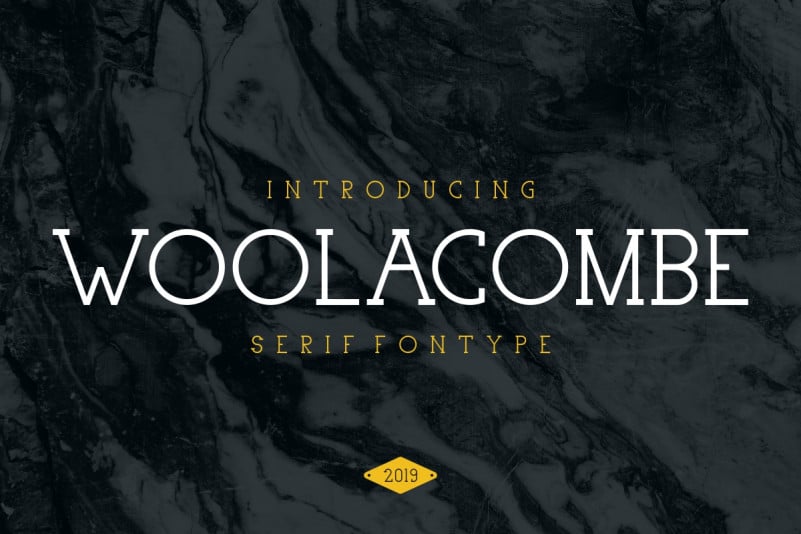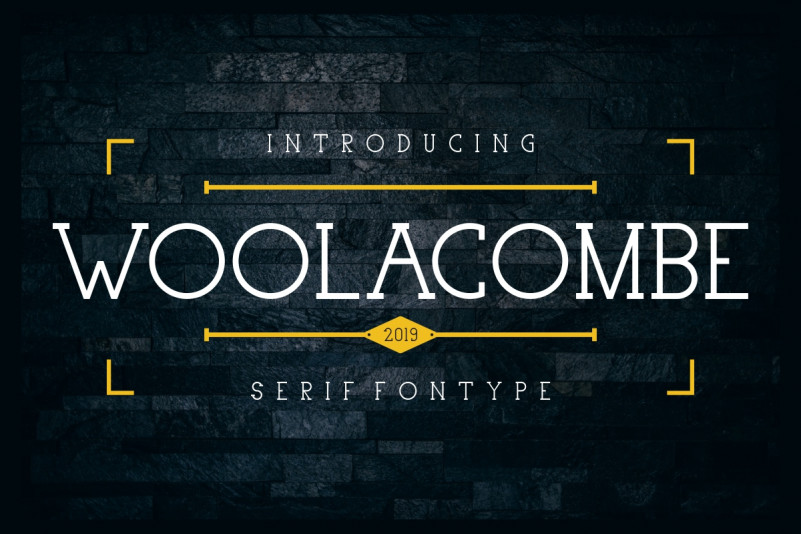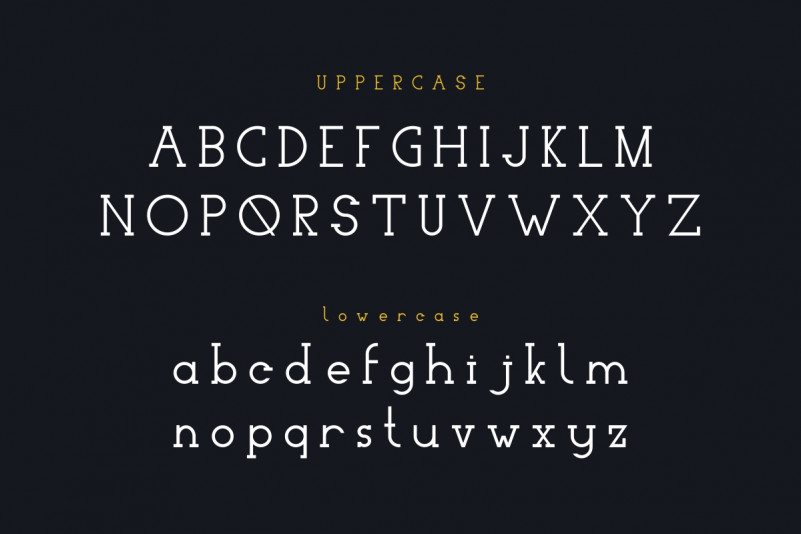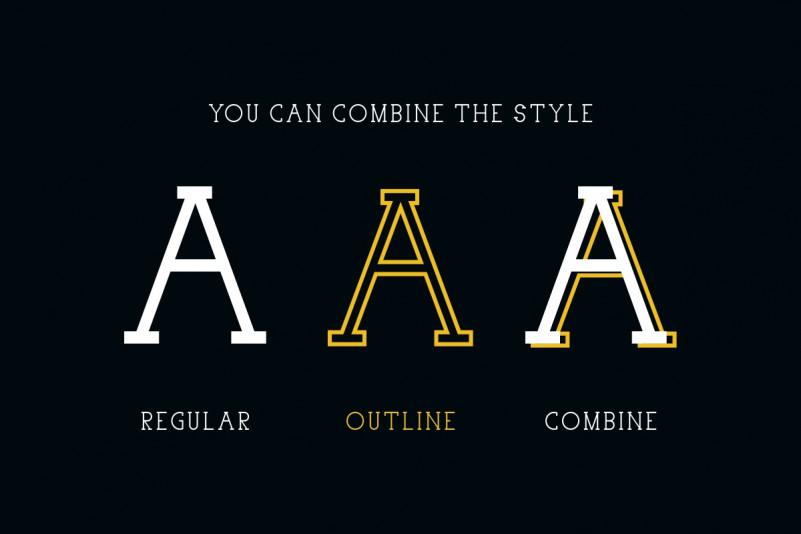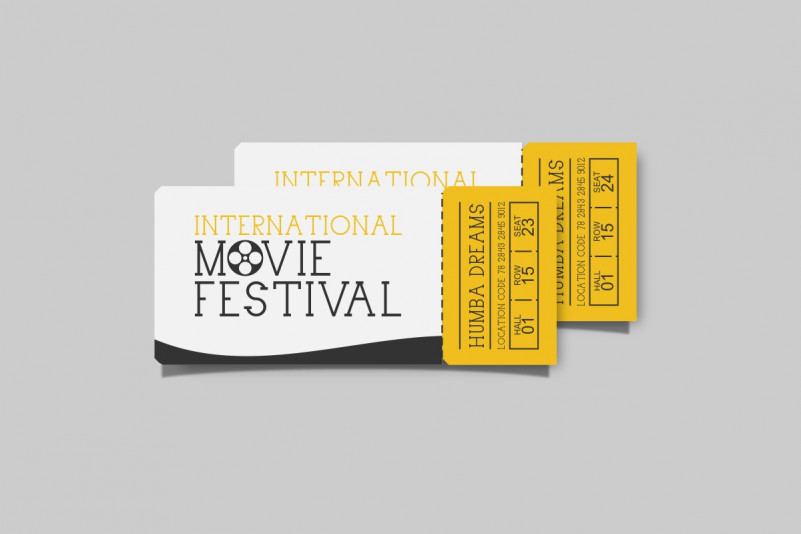
Woolacombe Typeface is a serif family font. with special shape and unique look. It’s an elegant font for many purposes : logo, branding, stationery, business card, poster, flyer etc